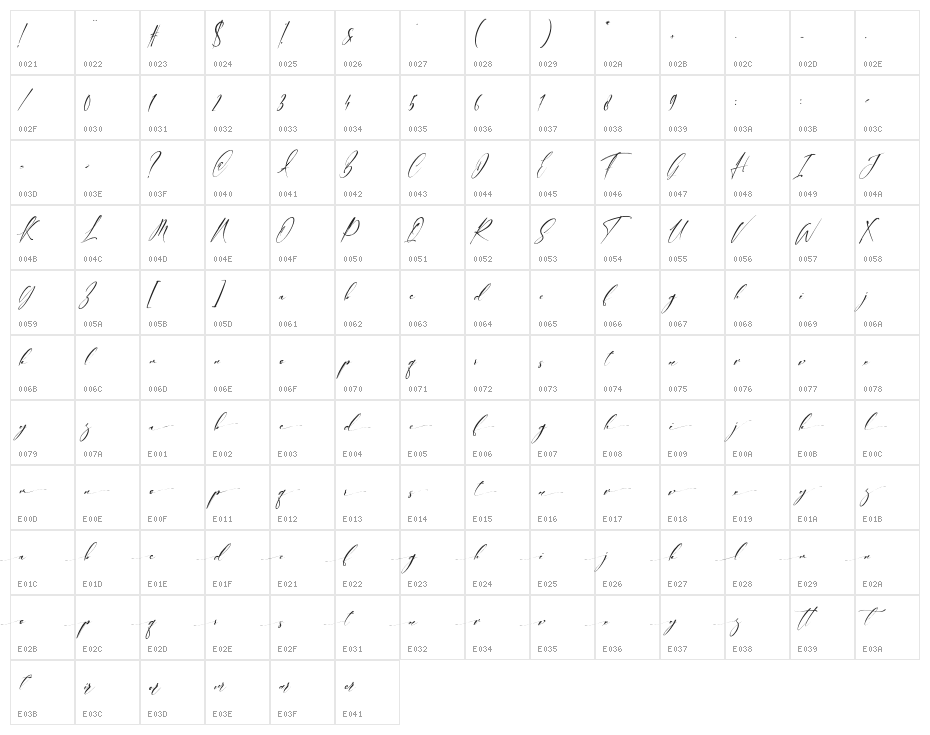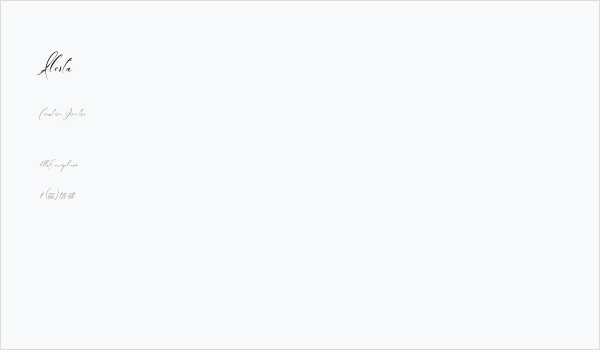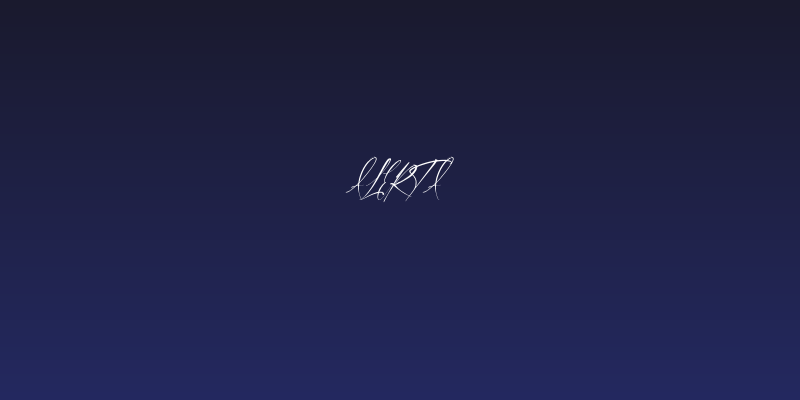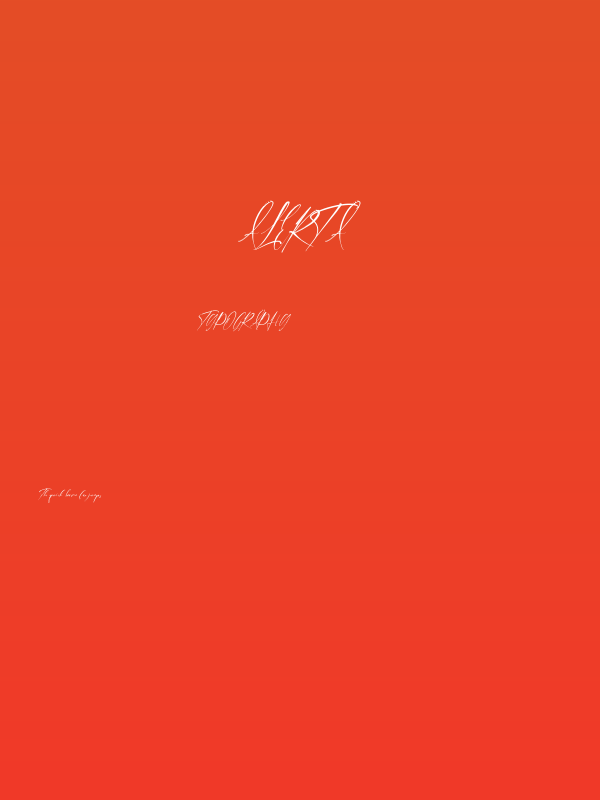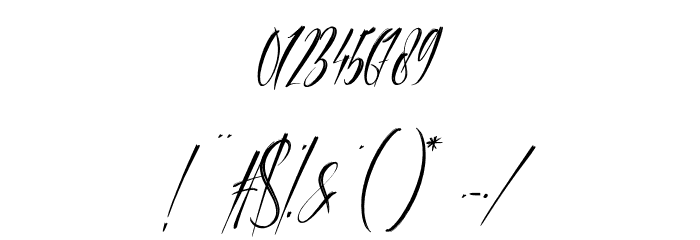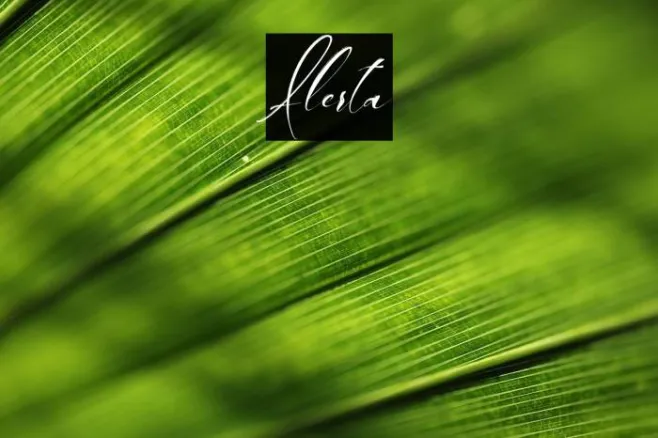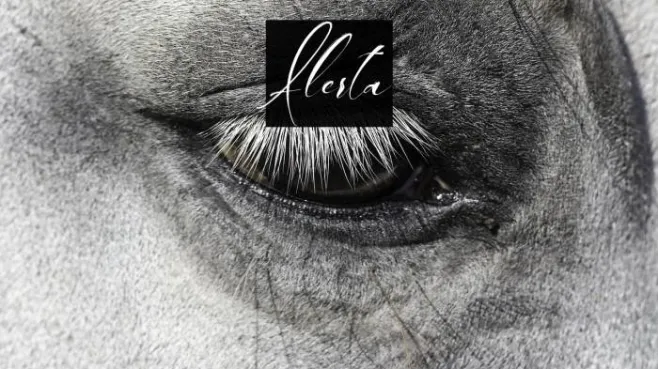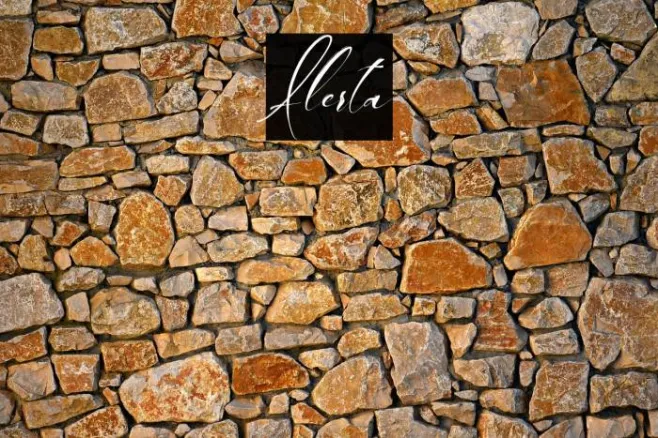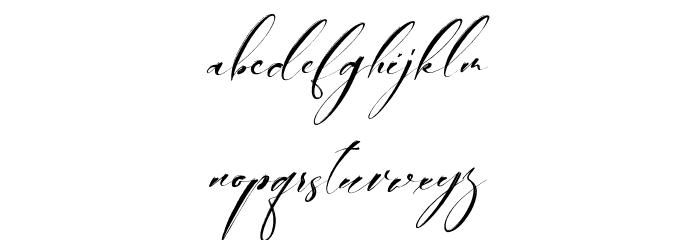
Alerta Font
Alerta Description
This font features an elegant and flowing script style, characterized by its high contrast between thick and thin strokes. The letters are intricately designed with a calligraphic flair, giving it a sophisticated and artistic appearance. The uppercase letters are particularly ornate, with extended flourishes and loops that add a sense of movement and grace. The lowercase letters maintain a consistent style, complementing the uppercase with their own subtle curves and connections. The numerals and special characters are designed to match the overall aesthetic, ensuring a cohesive look across all text. This font is ideal for projects that require a touch of elegance and refinement.